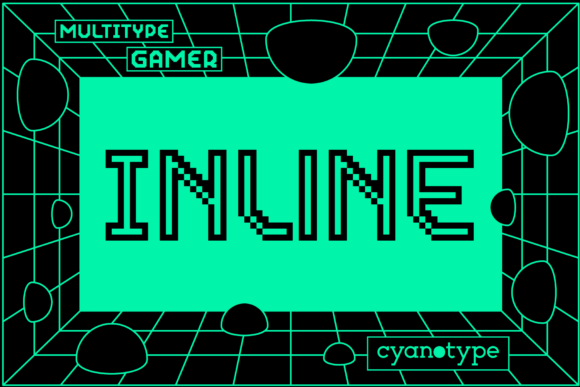
Welcome to the world of Gamer Inline Font, a captivating display font that will revolutionize your design game like never before!
Gamer Inline is a creation of cyanotype, a mastermind in the realm of typography. This pixelated marvel is meticulously designed with a cool and uniquely shaped aesthetic that will add a distorted yet trendy touch to all your designs.
Are you tired of monotonous and predictable fonts that fail to make a lasting impression? Embark on a journey with Gamer Inline, where every character exudes personality and pizazz. Its sharp edges and playful curves dance together in perfect harmony, creating a visual spectacle that will leave your audience mesmerized.
Whether you're designing eye-catching logos, captivating posters, or dynamic social media graphics, Gamer Inline is your ultimate weapon. Let your imagination run wild as you explore the endless possibilities this font offers.
With Gamer Inline, you're not just adding text to your designs; you're creating an experience that resonates with your audience. Its pixelated charm is reminiscent of classic video games, evoking a sense of nostalgia and excitement that will captivate gamers and non-gamers alike.
Unlock the full potential of your designs with Gamer Inline. Embrace the coolness, the uniqueness, the trendiness, and the sheer awesomeness of this pixelated masterpiece. Let your creativity soar to new heights and leave an unforgettable mark on the world, one design at a time.